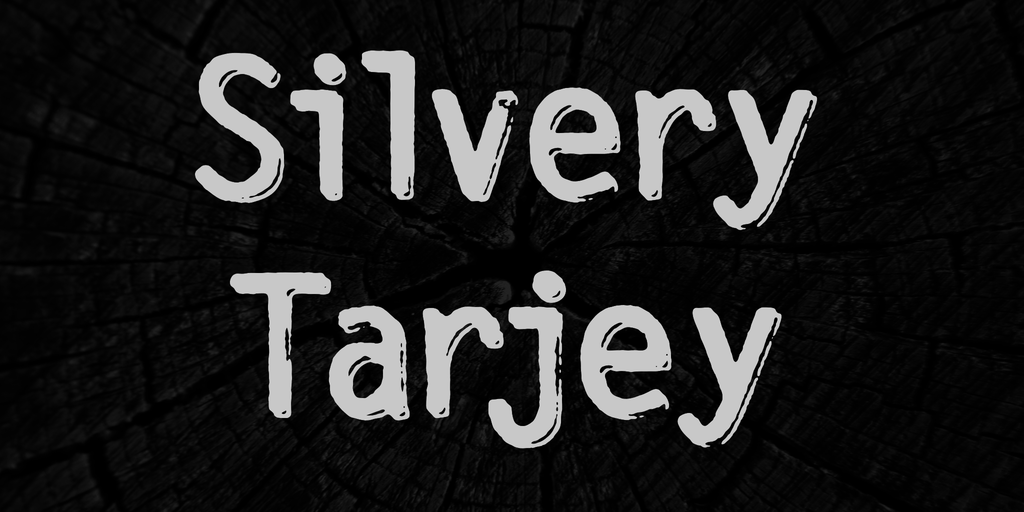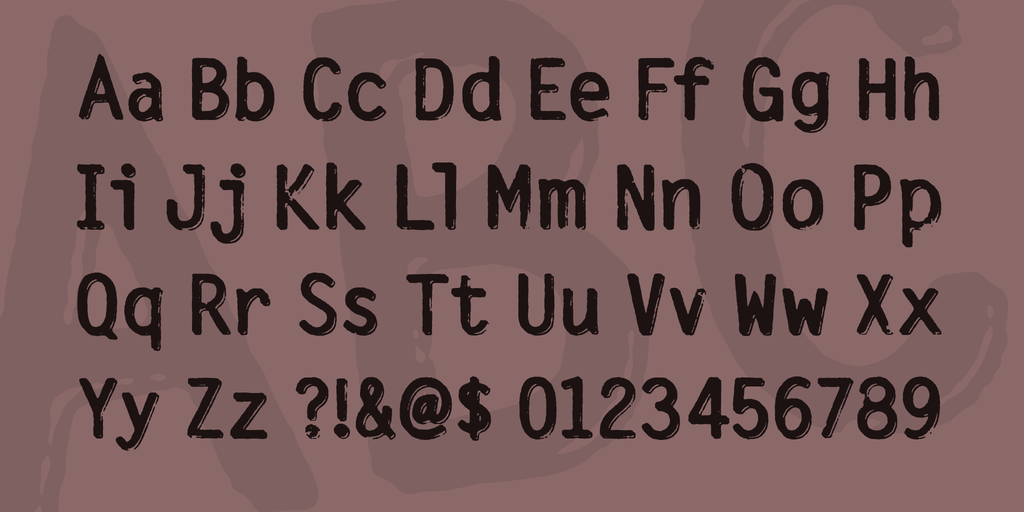
Silvery Tarjey Font
This is a simple font created for a simple personal project, but it has a nice kind of easy, legible warmth, drawing its base forms from classic typewriter glyphs and then dancing somewhere a bit three-dimensional with it, with stress (since I love stress … on fonts, I mean).